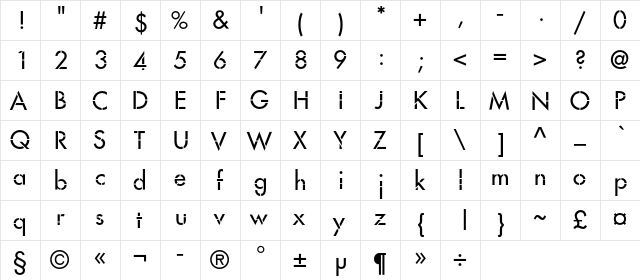
FavoritTraf-Normal Regular
Design Context for FavoritTraf-Normal Typeface
FavoritTraf-Normal is a composed and adaptable typeface that performs quietly and consistently across a wide range of design contexts.